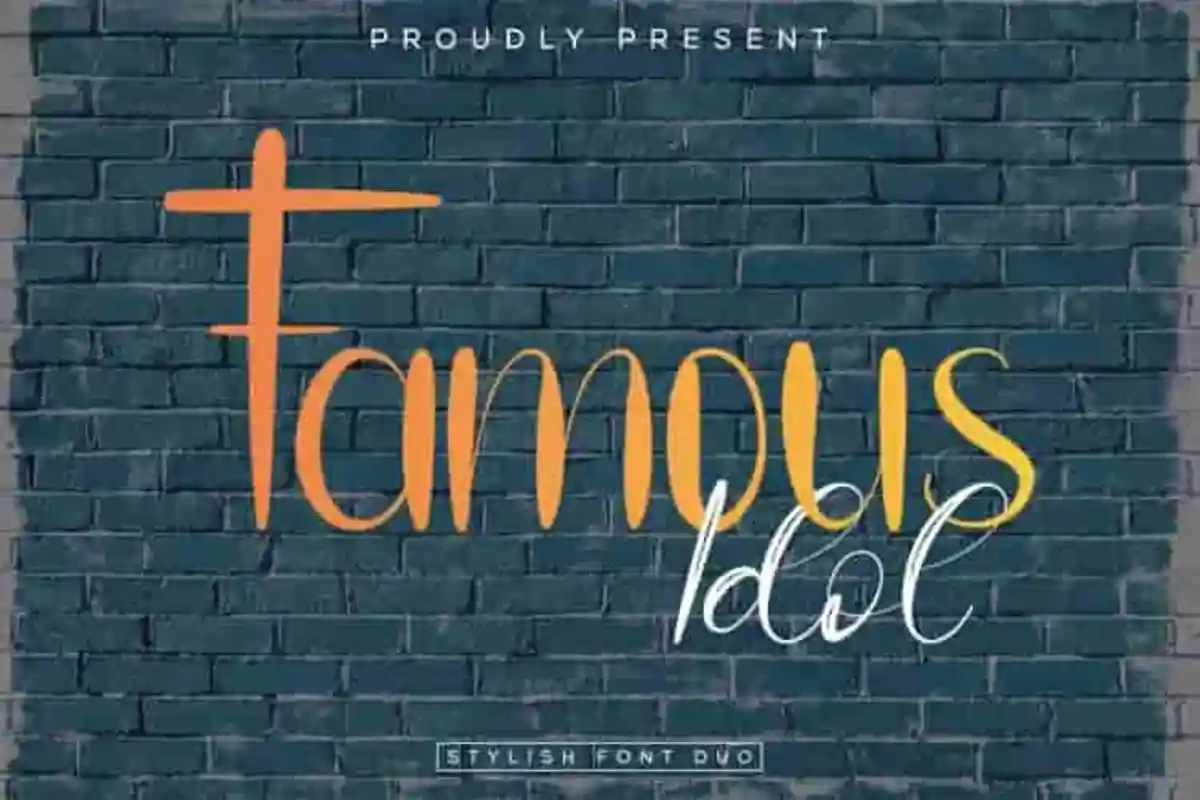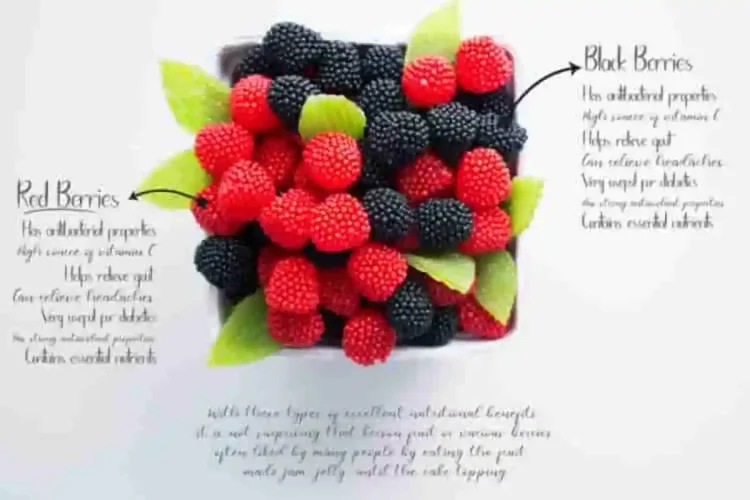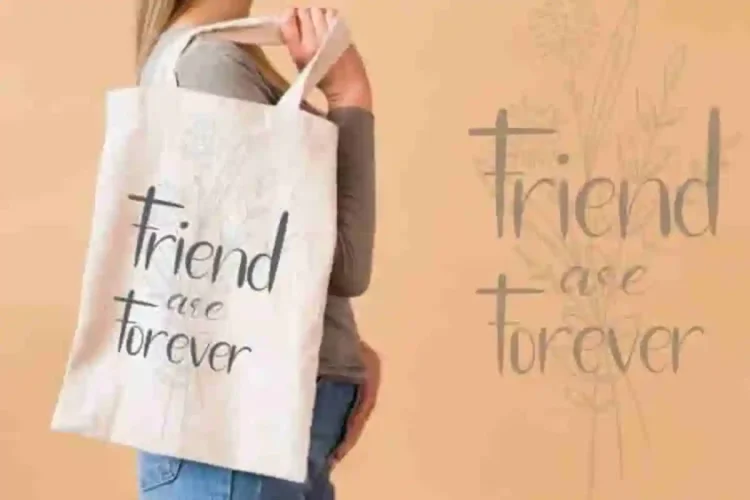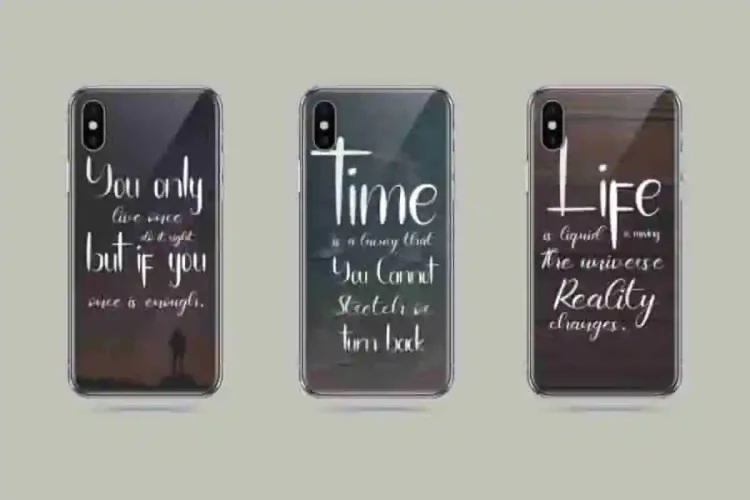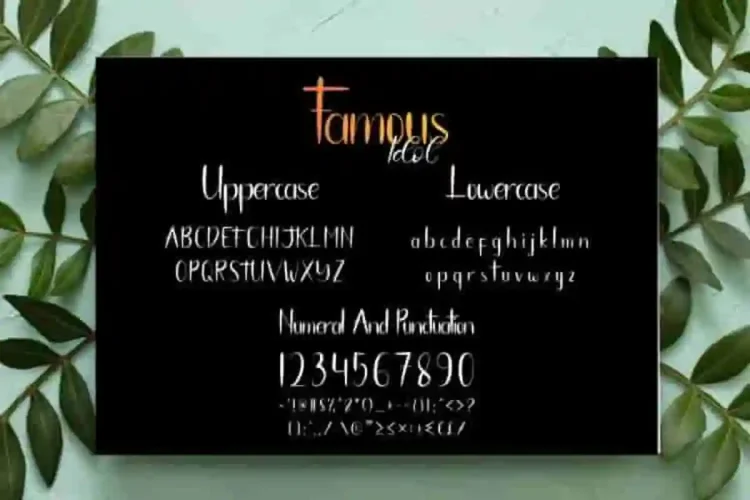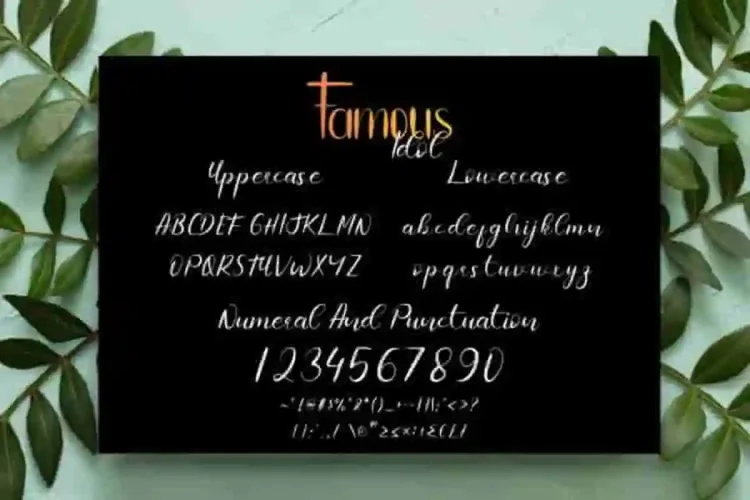
Famous Idol Calligraphy Script Font Duo
Famous Idol Calligraphy Script Font Duo is a font family with two unique handwriting style. A graceful script typeface from Edric Studio here in, Indonesia. The designers of this calligraphy and handwriting fonts are Widi and Suci.
Famous Idol Calligraphy Script Font Duo  a stylish and versatile typeface from Edric Studio designed to make your projects unforgettable. elegant,  sophisticated, stylish, textured and classic calligraphic style.
Famous Idol Calligraphy Script Font will be great for any projects  including : branding and logo (with extended license), stationery, business card, signage, flyer, brochure etc. Almost all industries will be match for this typeface: wedding, events, real estate, architect, law firm, florist, gardening, makeup artist, travel, hotel, musician etc.